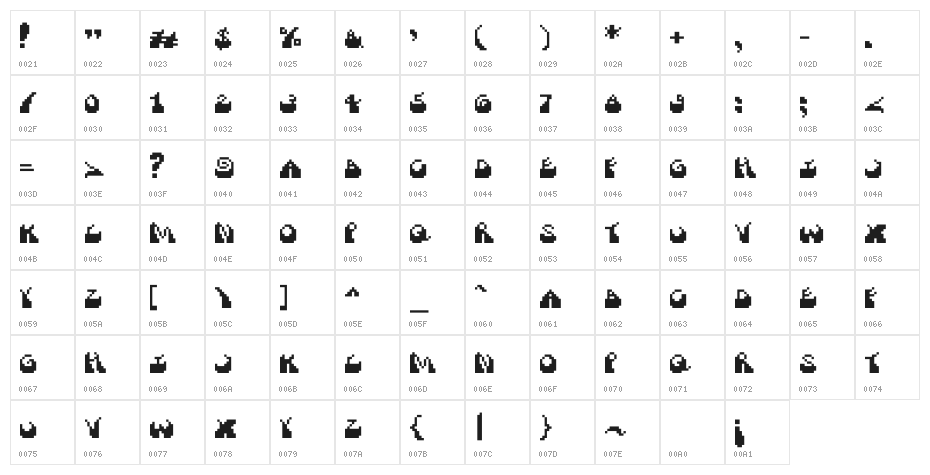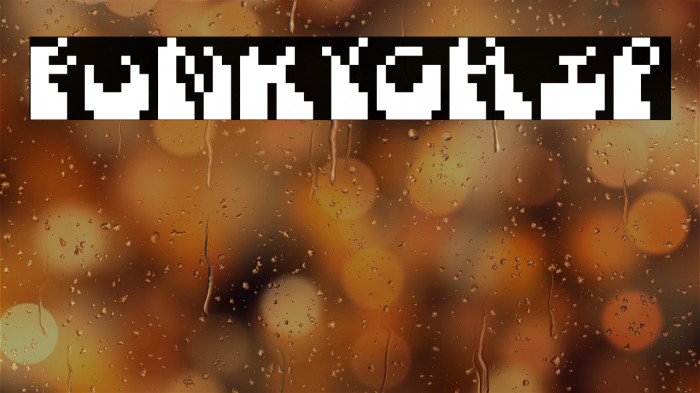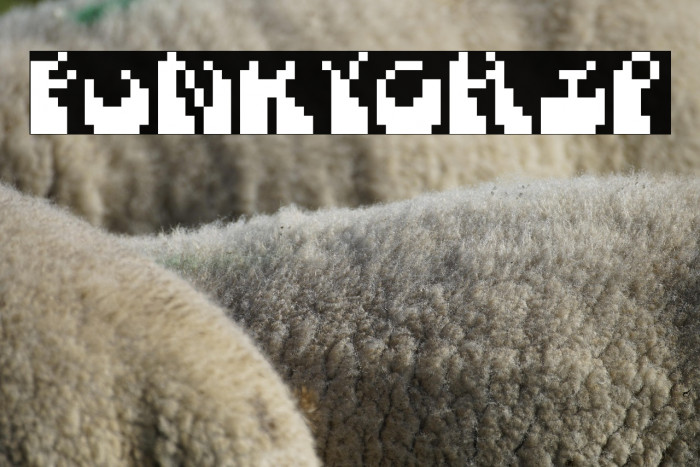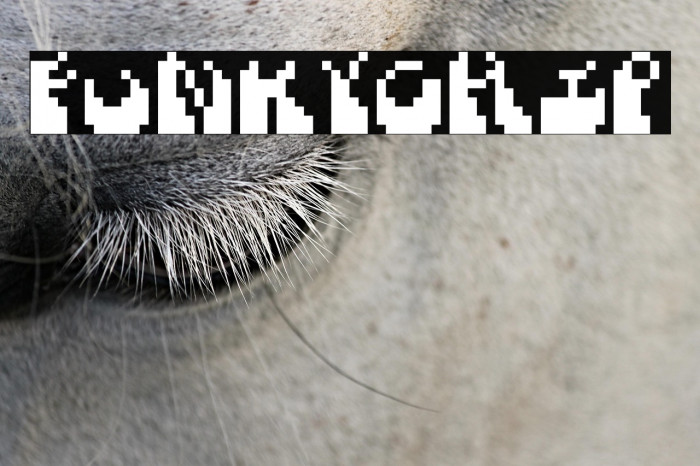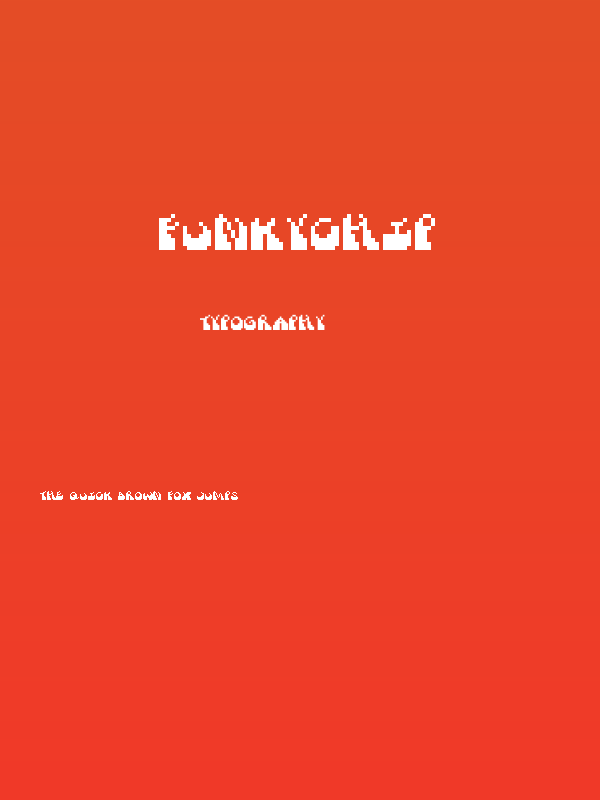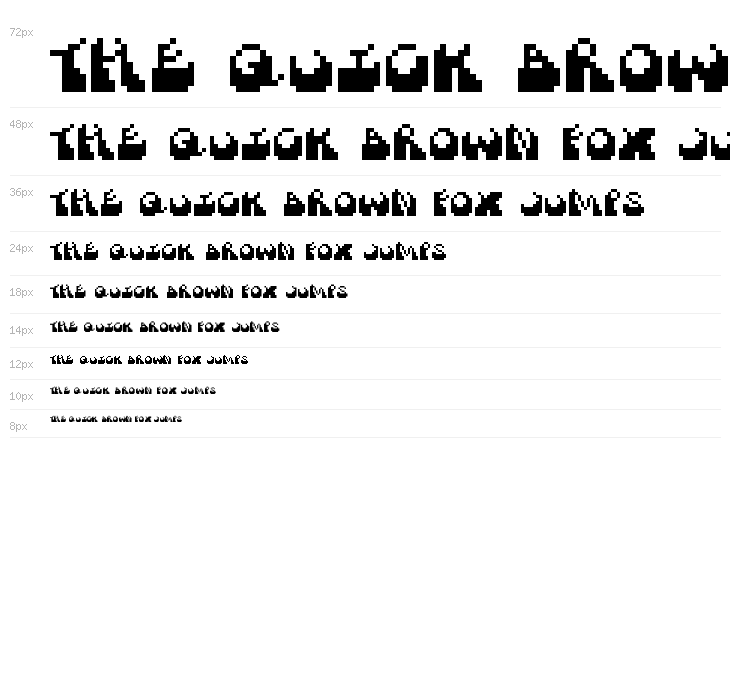
FunkyChip Font
FunkyChip Description
This font features a bold, pixelated style reminiscent of retro video games and digital displays. Each character is composed of blocky, square shapes that give it a distinctly digital and geometric appearance. The uppercase and lowercase letters maintain a consistent height, contributing to a uniform look across the text. Numbers and special characters follow the same pixelated design, ensuring a cohesive aesthetic. The font's unique style makes it stand out, perfect for projects that require a nostalgic or tech-inspired theme.
| Overall Style | Retro, Digital |
| Proposed Projects | Ideal for video game graphics, tech-themed posters, digital art, and retro-style branding. |